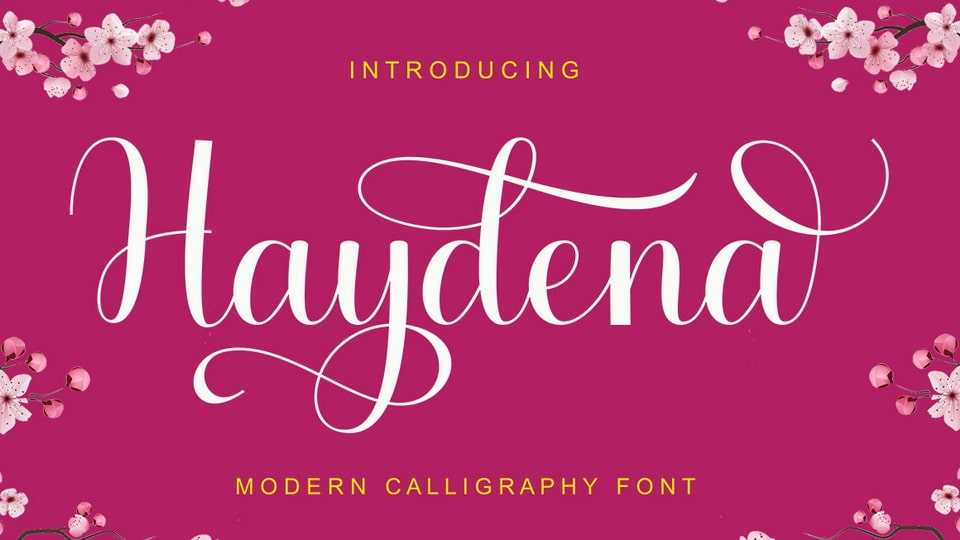
Download Haydena Script font, a calligraphic manuscript font, modern, dynamic and pretty with swashes. It can be used for many purposes. such as titles, signatures an so on.